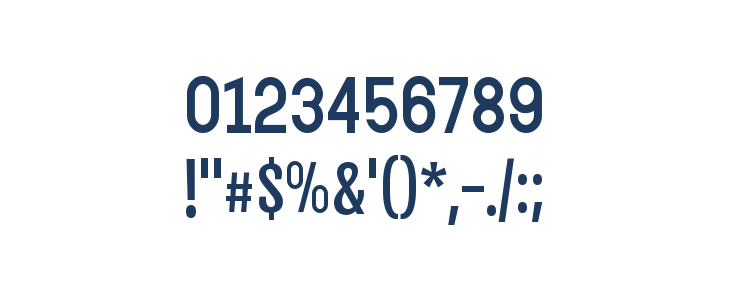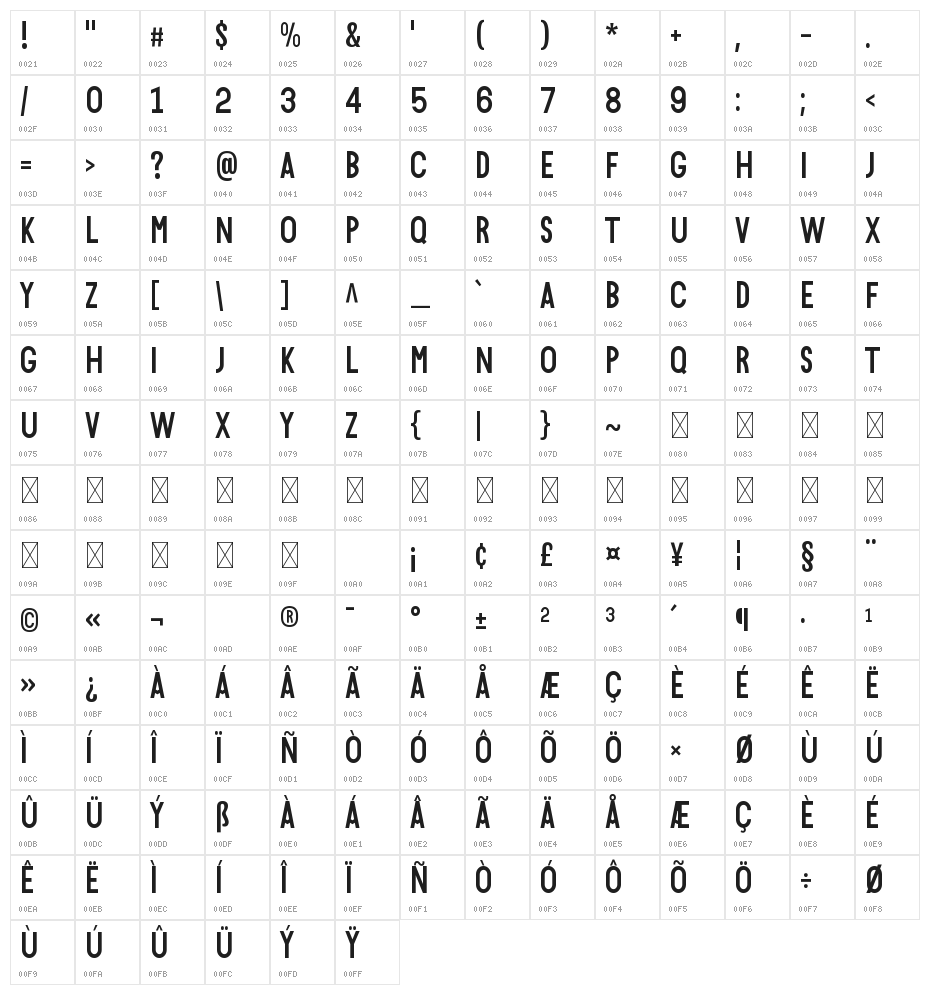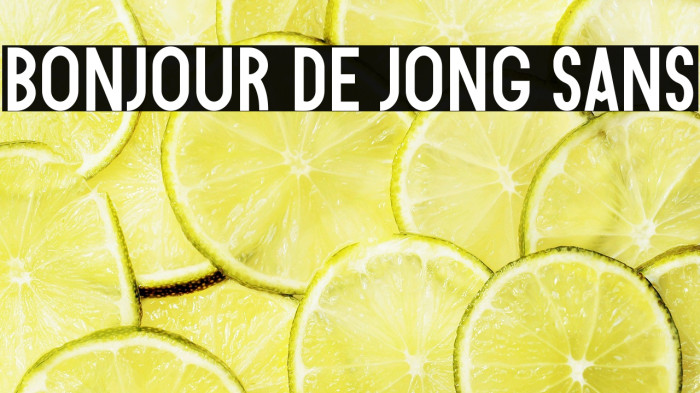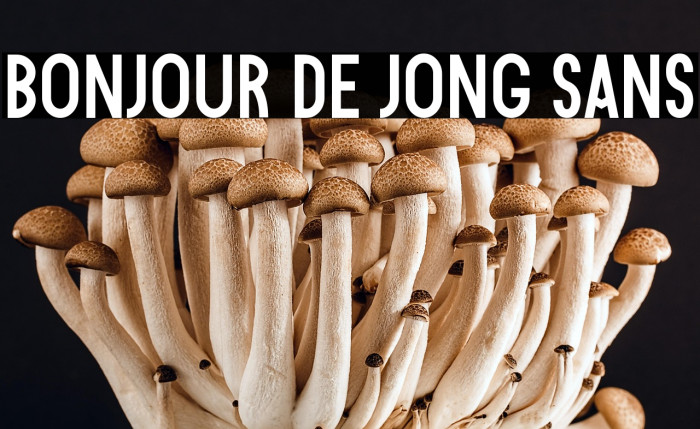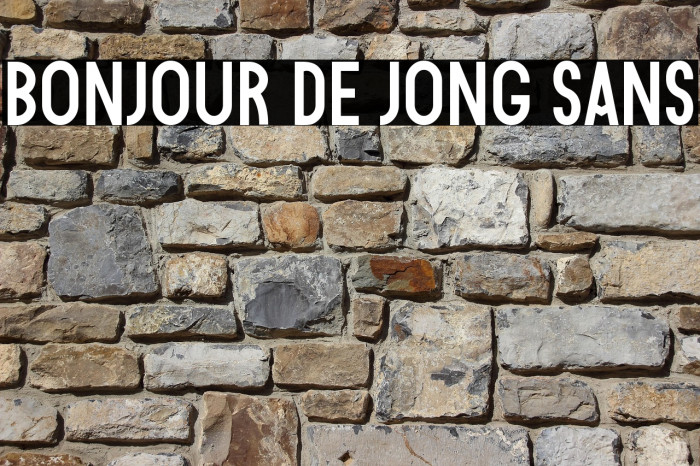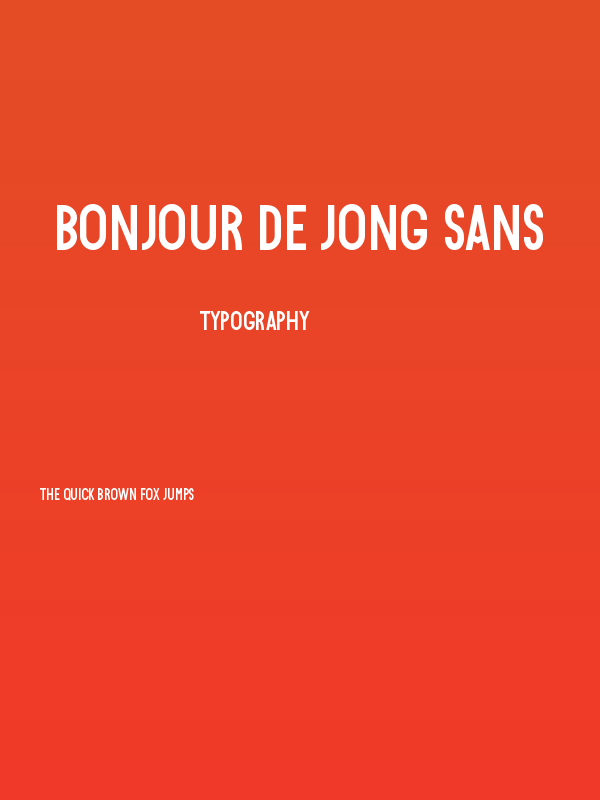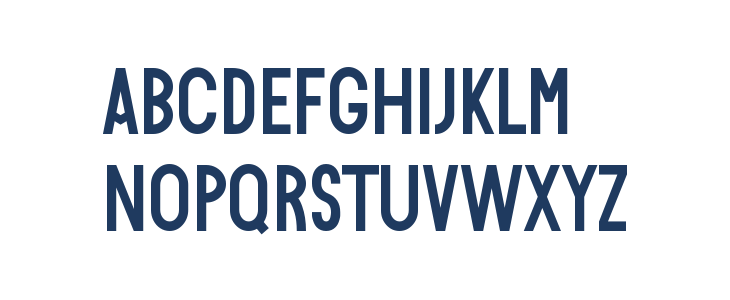
Bonjour De Jong Sans Font
Bonjour De Jong Sans Description
This font features a clean and modern sans-serif style, characterized by its bold and uniform strokes. The uppercase and lowercase letters are well-proportioned, offering a balanced and harmonious appearance. The numerals are clear and easily distinguishable, making them suitable for various applications. The special characters are designed with precision, maintaining the overall aesthetic of the font. Its simplicity and clarity make it versatile for both digital and print media.